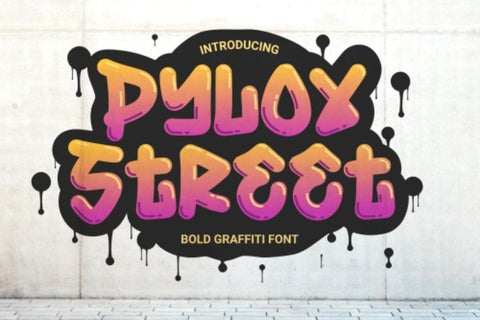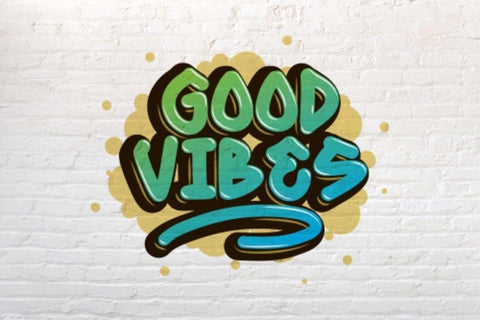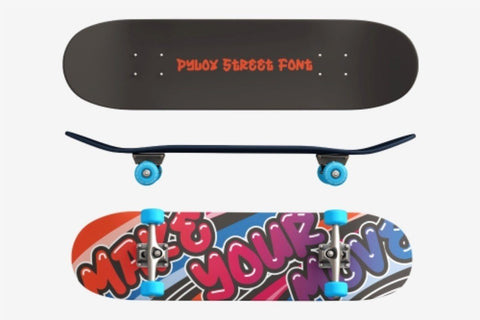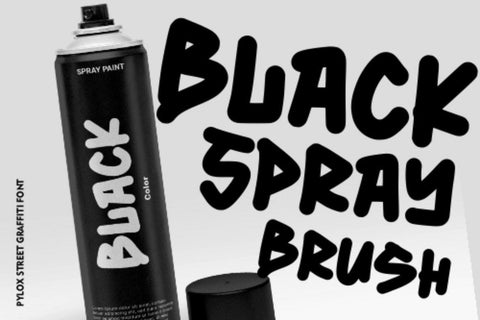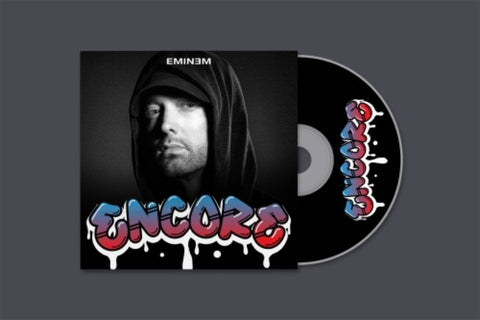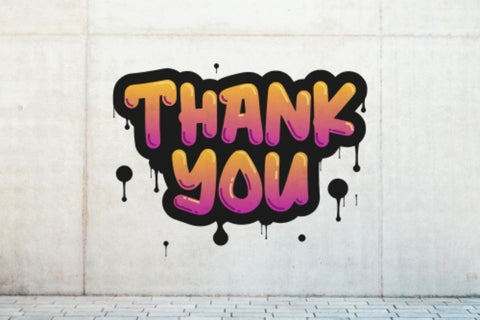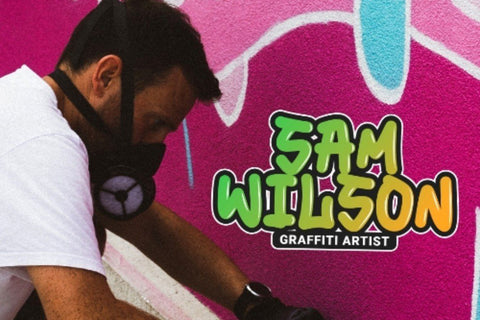
Pylox Street – Bold Graffiti Font
Introducing a new graffiti Pylox Street
Inspired from street art born Pylox Street Suitable for many design project, branding, packaging, logo, wall art, headline, template, banner, poster, and many more projects. These include all caps, punctuation, and numerals.